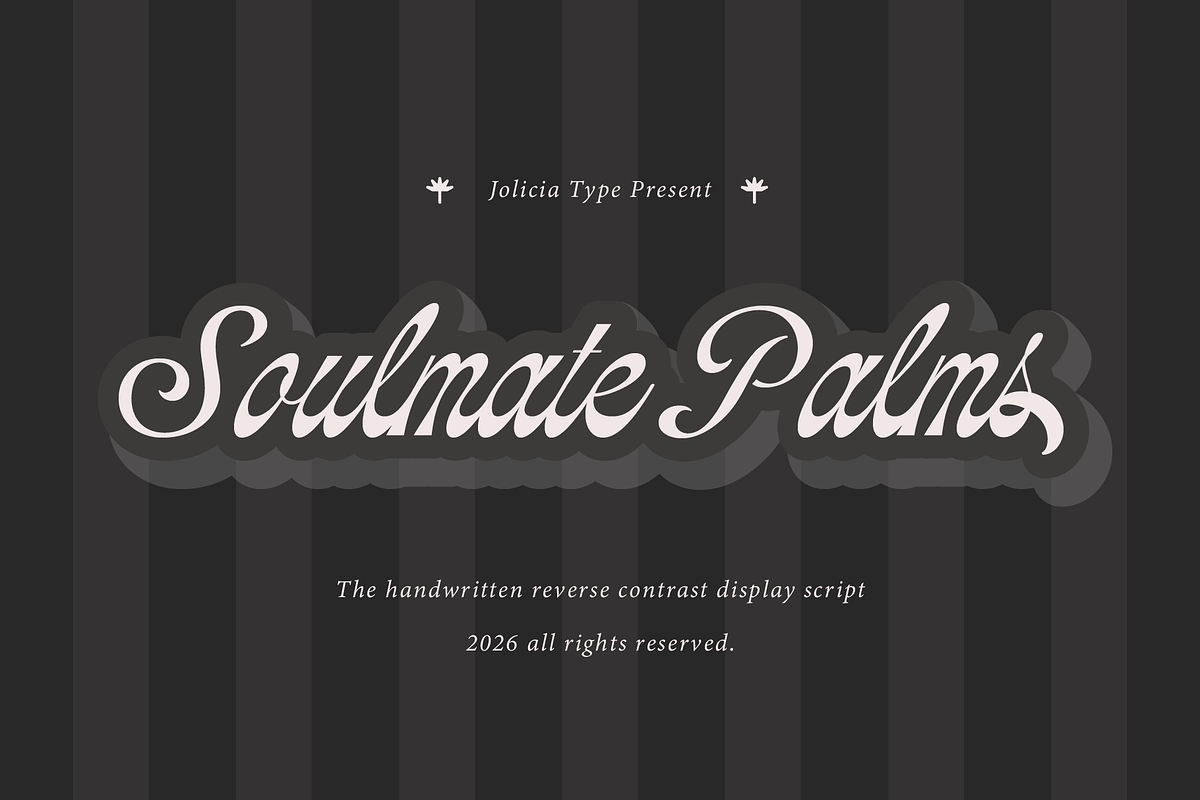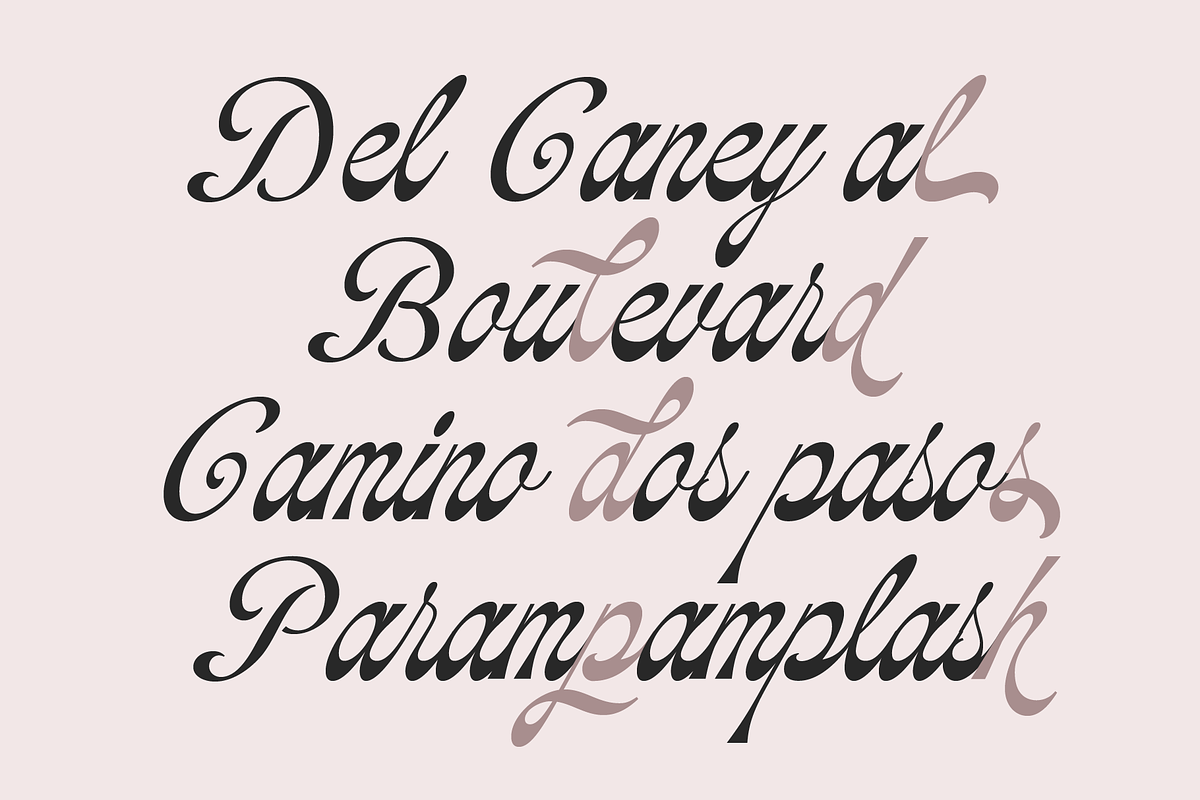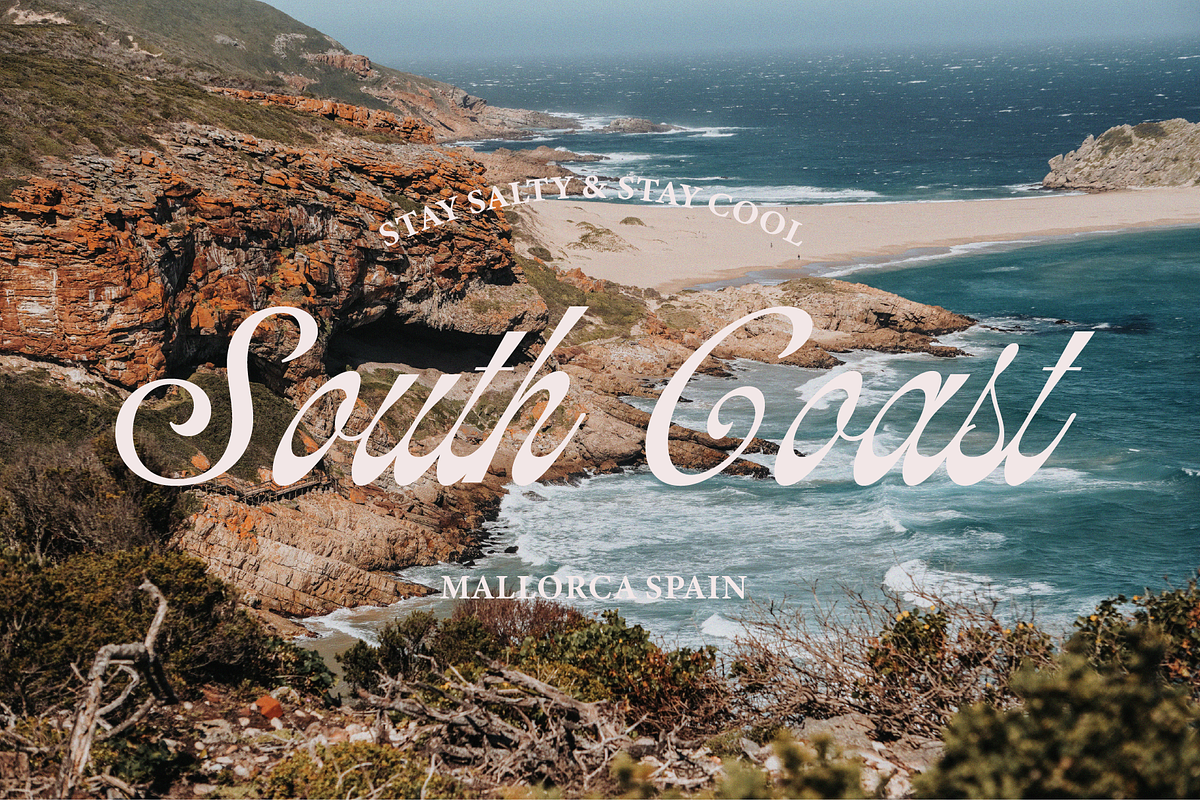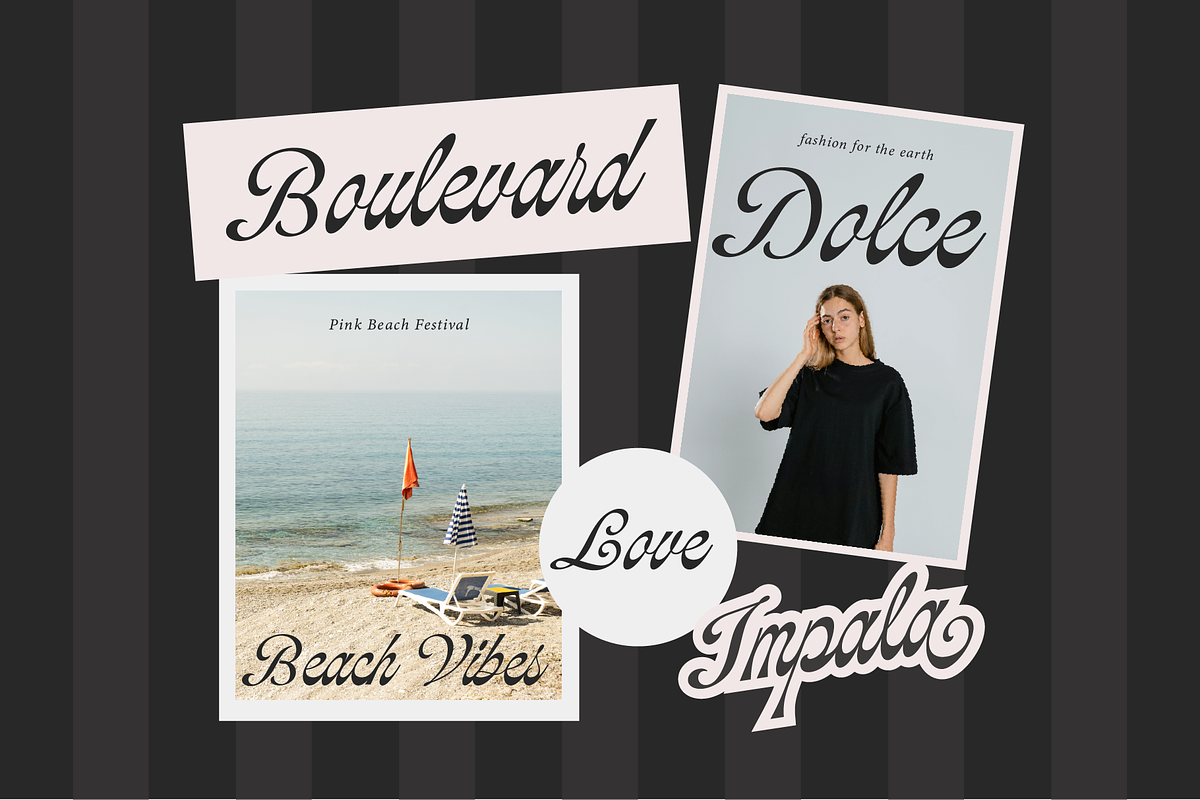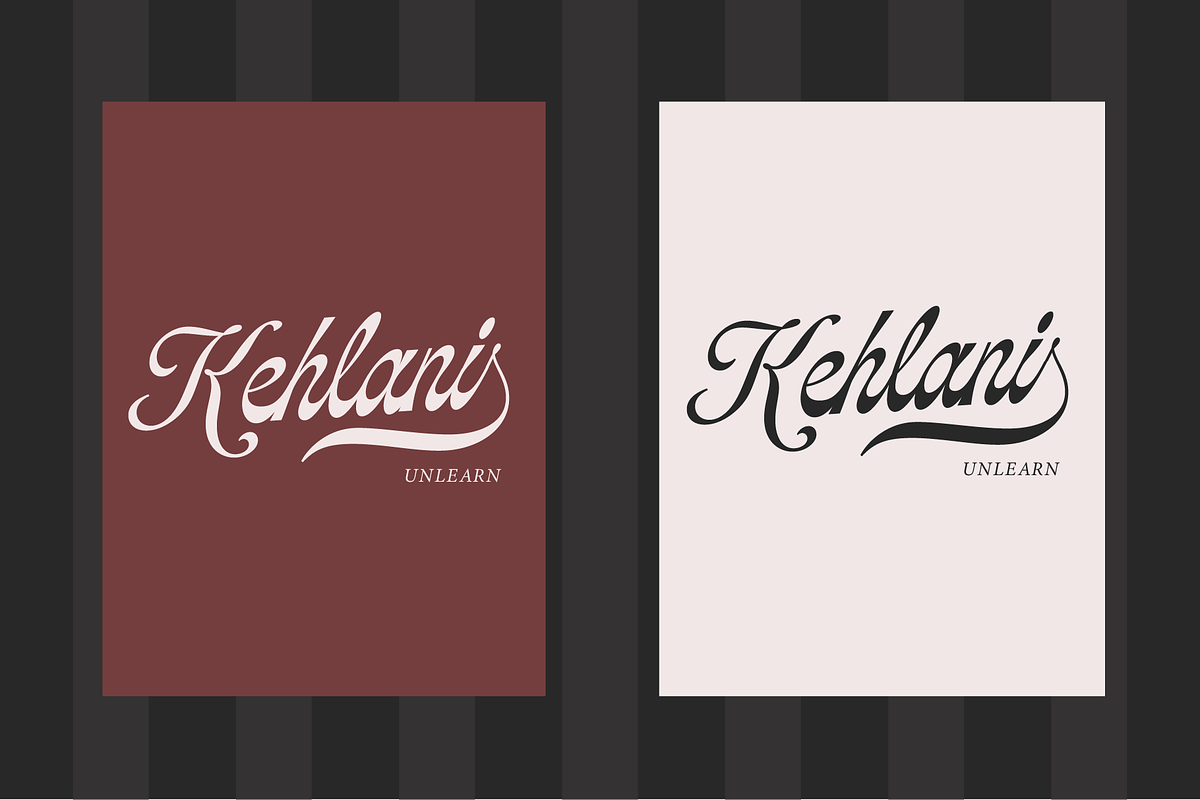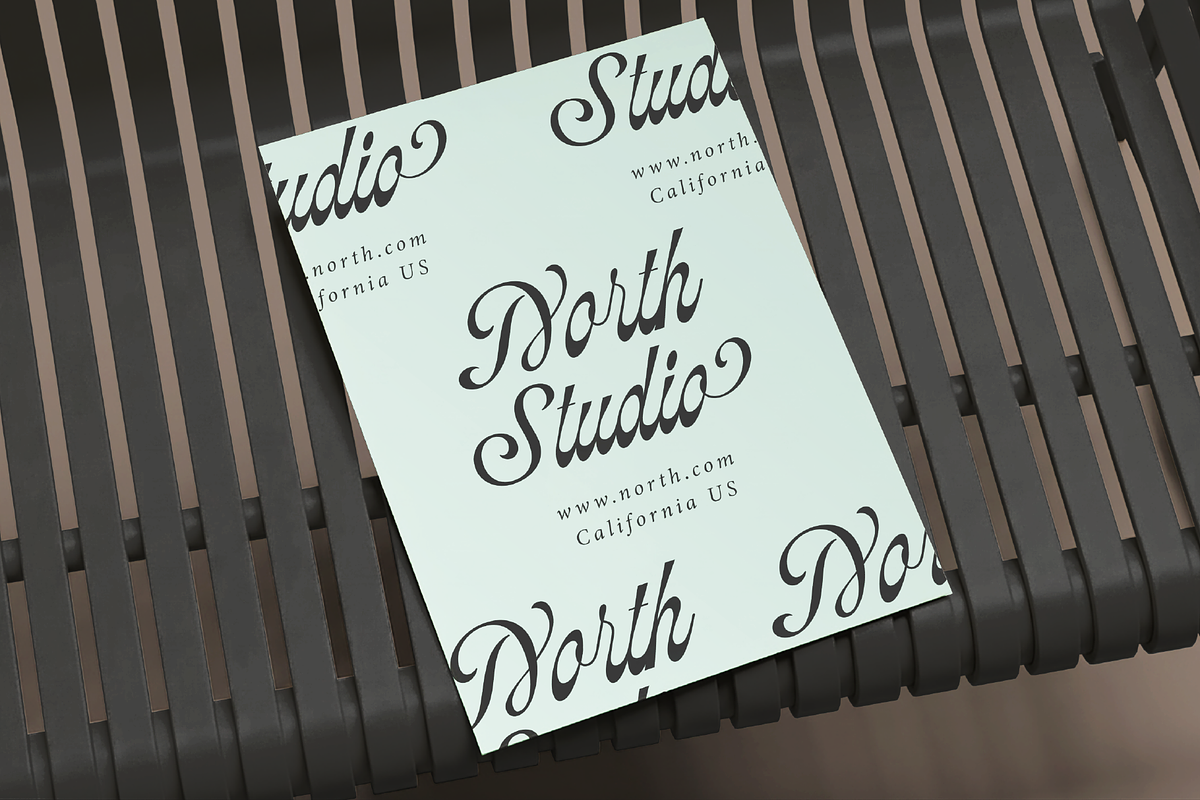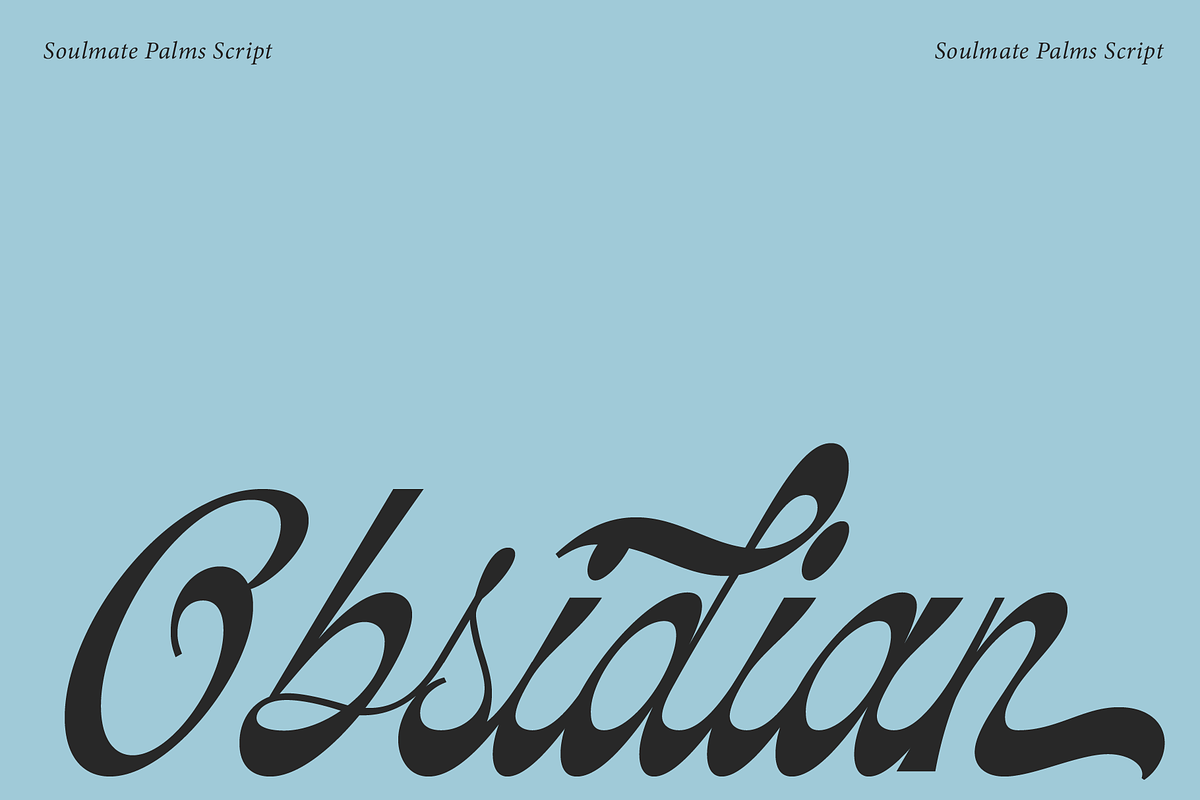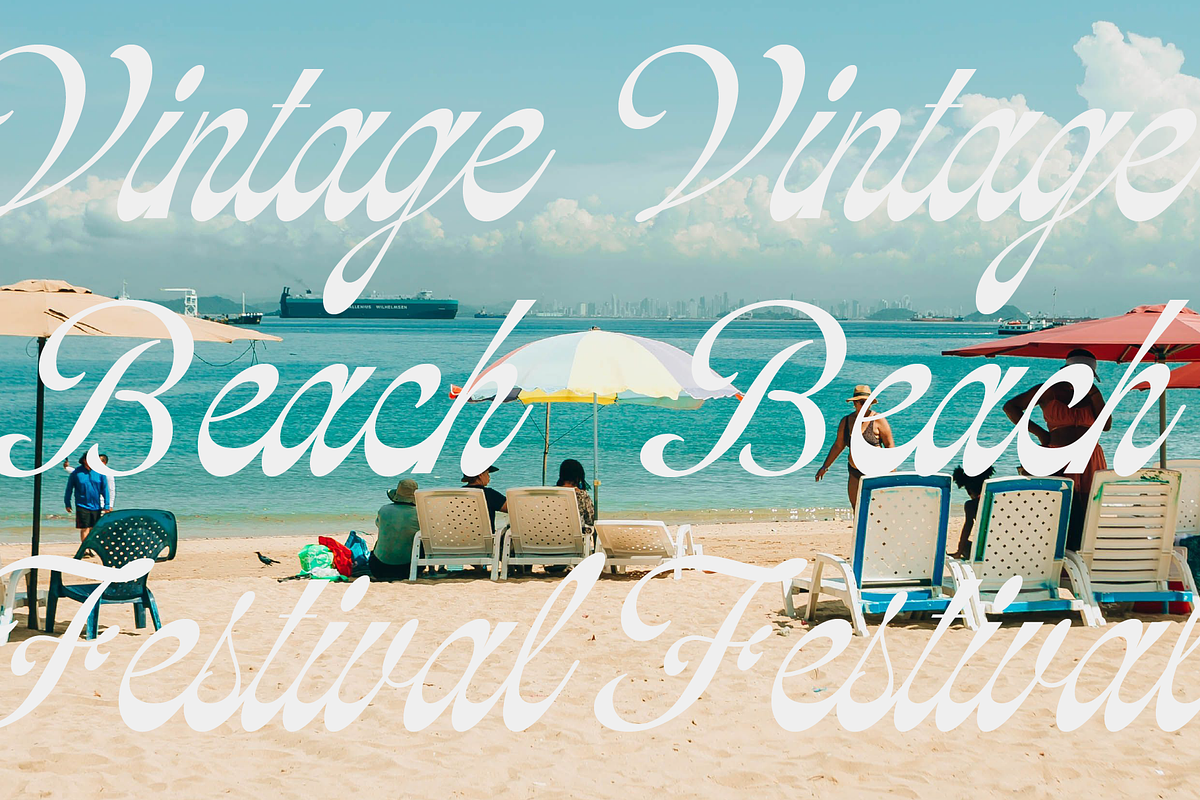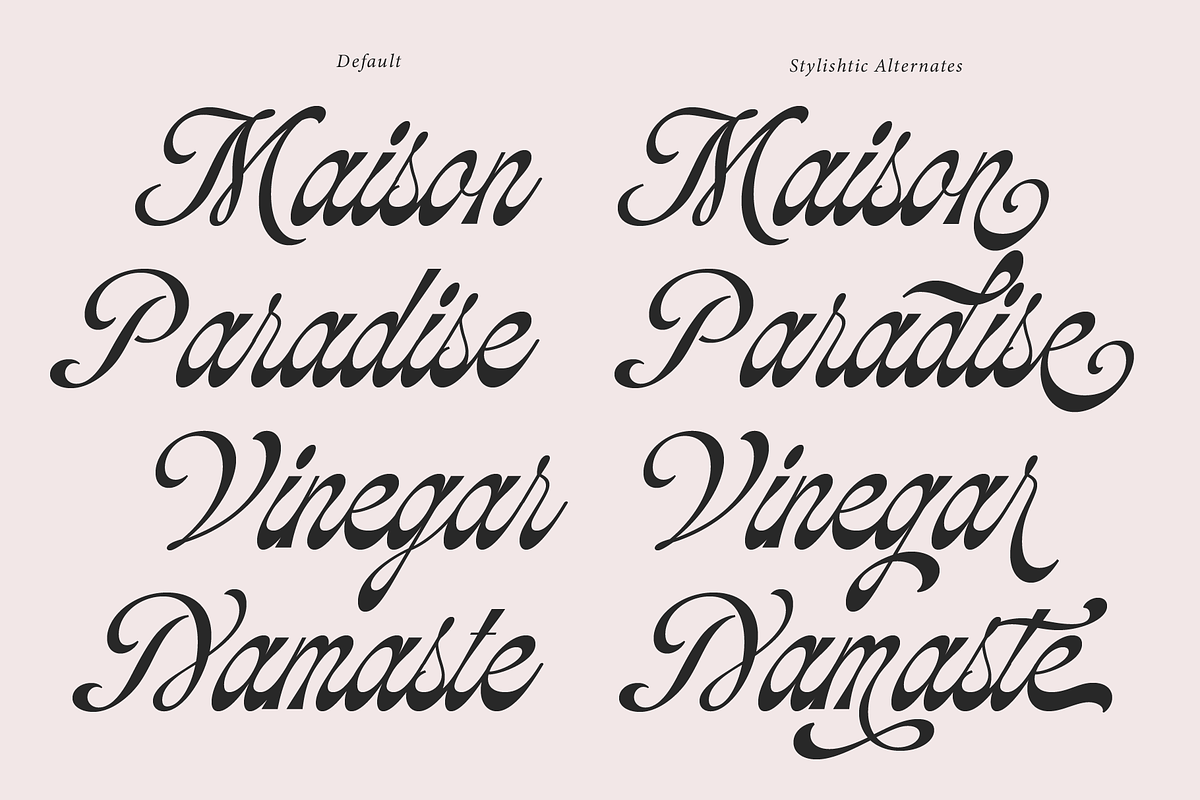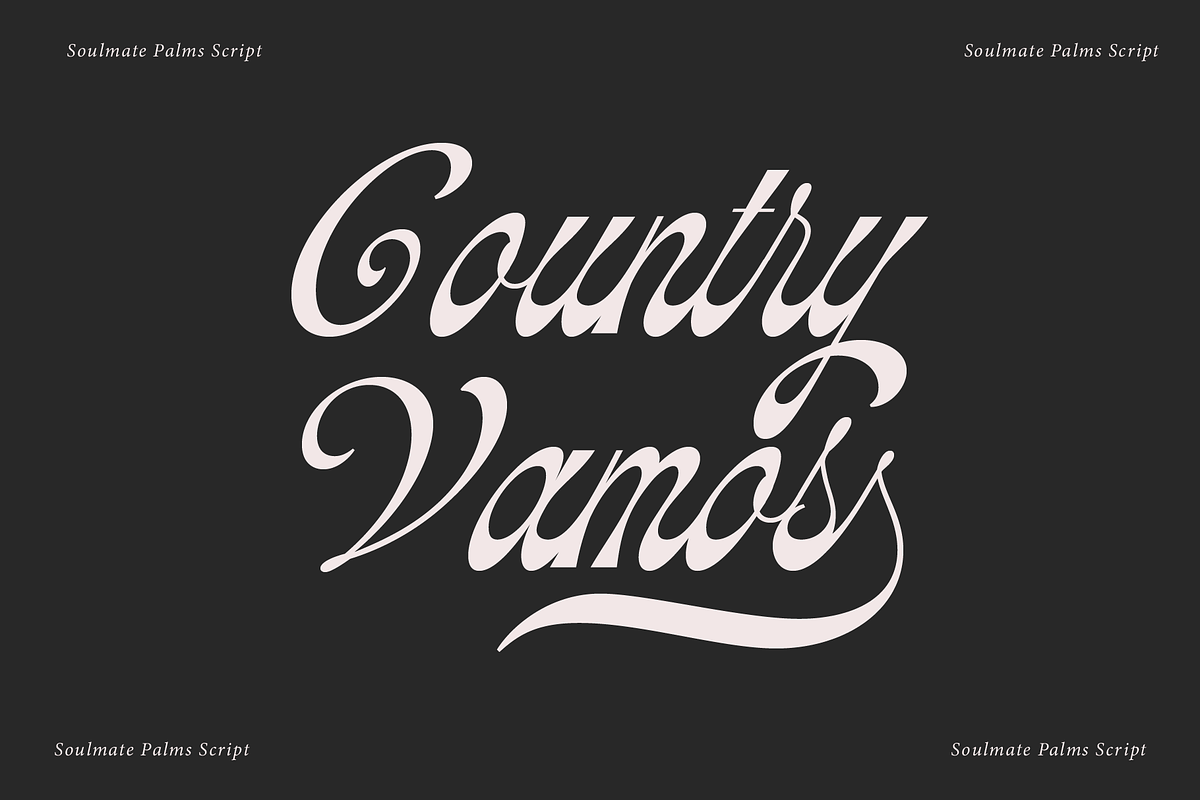
Soulmate Palms | Vintage Script
Soulmate Palms is a charming handwritten script font that blends vintage romance with a modern, expressive character. Designed with a distinctive reverse contrast structure, it creates an unexpected visual rhythm where thick and thin strokes are beautifully reversed, giving the lettering a bold yet graceful appearance.
Its flowing curves, organic handwritten feel, and dramatic stroke contrast make Soulmate Palms feel nostalgic without looking outdated. The result is a script typeface that feels romantic, stylish, playful, and effortlessly expressive.
Perfect for branding, logos, packaging, wedding stationery, fashion projects, editorial designs, posters, social media graphics, invitations, labels, and creative headlines. Soulmate Palms works especially well when you want your typography to feel personal, artistic, and full of character.